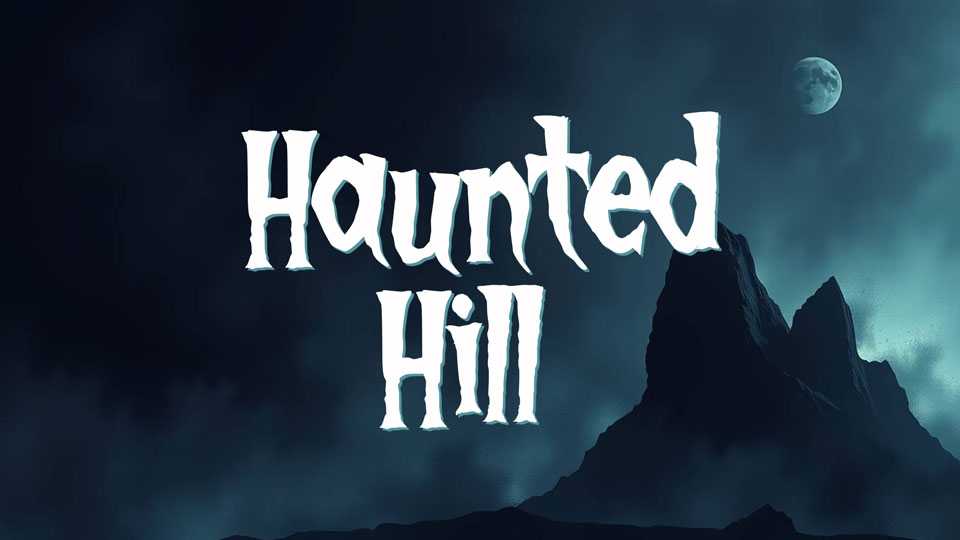
Download Haunted Hill font, a hand-crafted display typeface inspired by the title card of the 1959 cult horror film House on Haunted Hill. Its uneven strokes and spectral presence capture the eerie, retro vibe of vintage movie posters and classic fright-night themes.